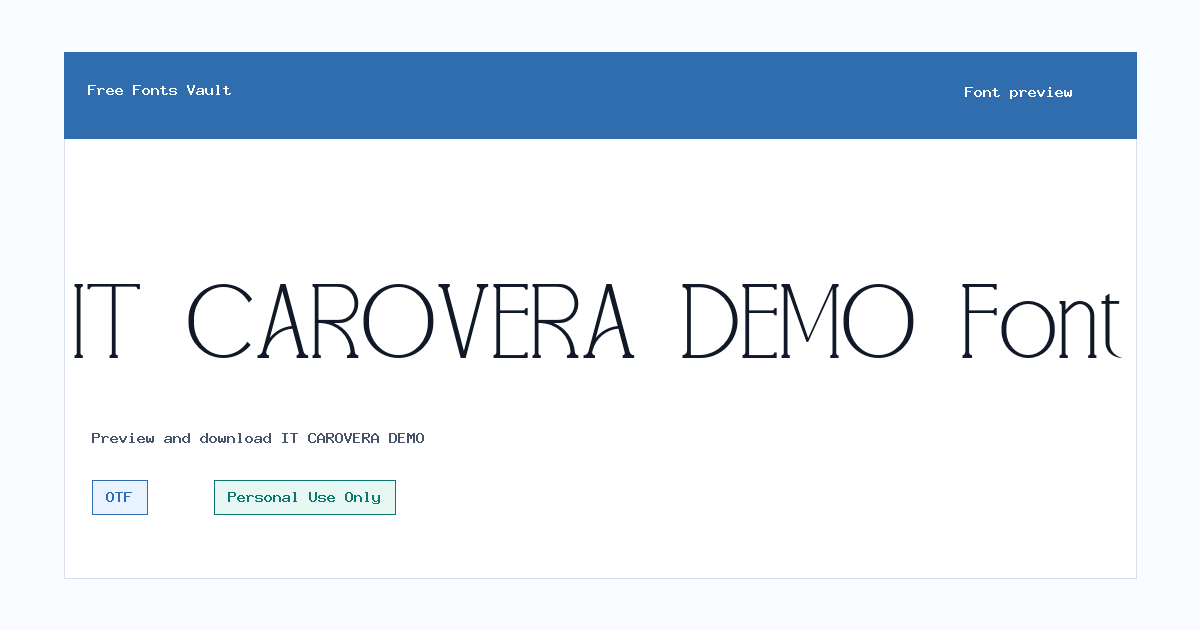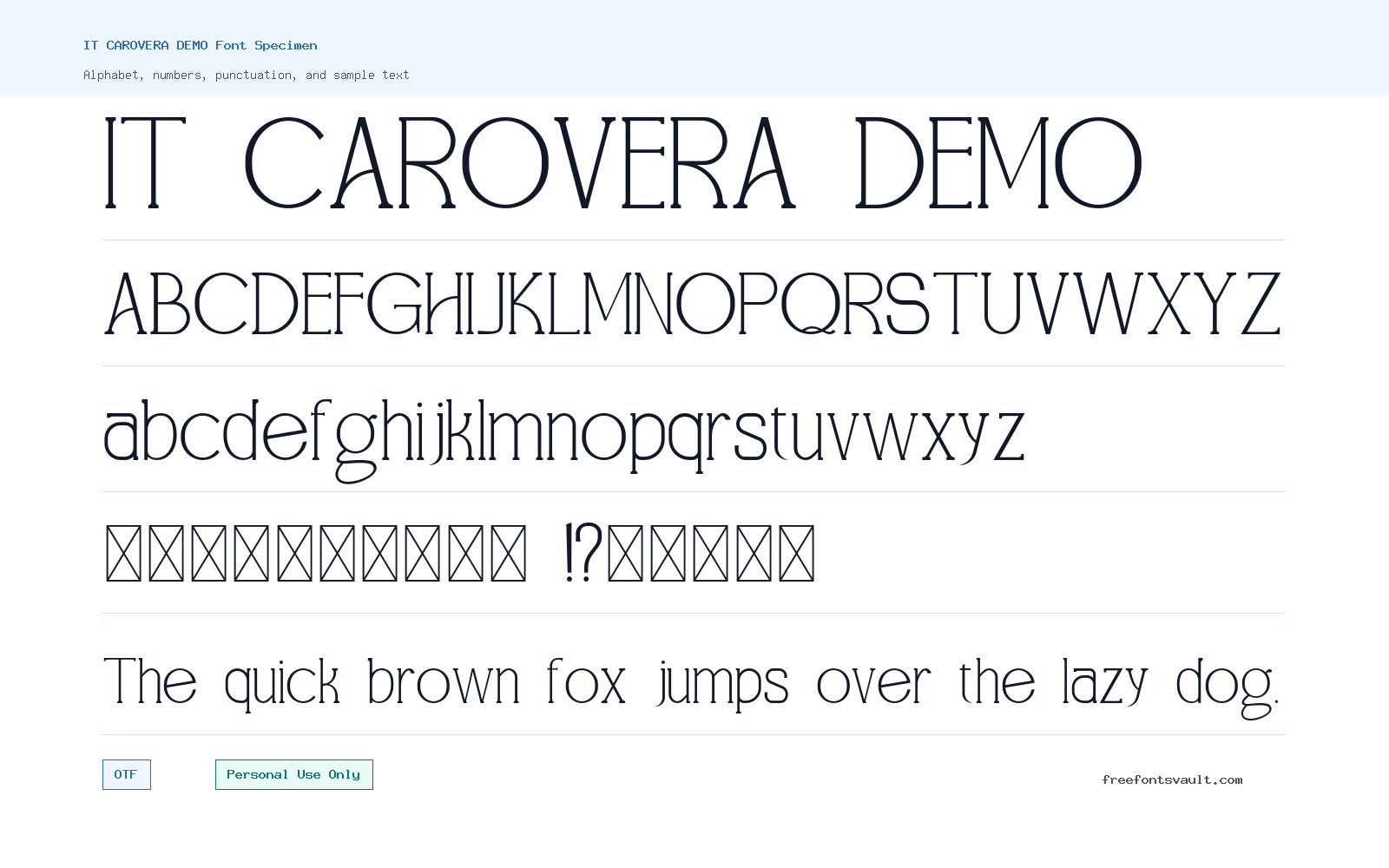
IT CAROVERA DEMO
IT CAROVERA DEMO font.
IT CAROVERA DEMO is a serif display font from Indotype Foundry. It is available as an OTF regular style and is best treated as a personal-use demo font for testing elegant headings, logo concepts, posters, and visual layouts before choosing a full commercial license.
About IT CAROVERA DEMO
IT CAROVERA DEMO has the kind of serif personality that works well when a design needs a more refined, editorial feel. Because the downloadable file is the regular style, it is a good starting point for previewing the family’s basic character in titles, short lines, brand mockups, and poster text. Use the preview box to test the exact words you plan to design with, especially if your project depends on distinctive capitals, punctuation, or tight letter spacing. Serif display fonts can look polished in a headline but may need careful spacing when used in all caps, short logos, or large-format graphics.
This font is most useful for personal design exploration: mood boards, portfolio drafts, social graphics, invitation mockups, packaging concepts, book-cover studies, and web hero-section previews. For logo work, try both uppercase and title case, then adjust tracking so the serifs do not feel crowded. For posters and editorial layouts, pair it with a quiet sans serif for body text instead of forcing the same font into long paragraphs. A simple sans serif can keep captions, navigation, and product details readable while IT CAROVERA DEMO handles the main visual voice. If you plan to use the design for a client, product, ad, logo, merchandise, or website launch, check the license terms from the foundry first and obtain the correct permission.
- Serif display style suited to headlines, logo drafts, posters, invitations, and editorial-style mockups
- Single available weight in this download, making it best for focused title and display testing rather than full typography systems
- Works best in short text settings where spacing, contrast, and letter shapes can be reviewed at larger sizes
- Logo concepts and personal brand mockups
- Editorial-style headings and magazine layout studies
- Invitation, greeting card, and stationery drafts
- Packaging mockups, label studies, and product presentation concepts
- Website hero text and landing page visual previews
- Mood boards and client presentation drafts that are not final commercial deliverables
Who designed IT CAROVERA DEMO?
The font is credited to Indotype Foundry.
What is this font best used for?
It is best for short, visual text such as logos, posters, invitations, editorial headings, packaging mockups, and web hero previews.
Is it good for body text?
It is better suited to display use. For long paragraphs, pair it with a more readable text font and use IT CAROVERA DEMO for headings or featured words.